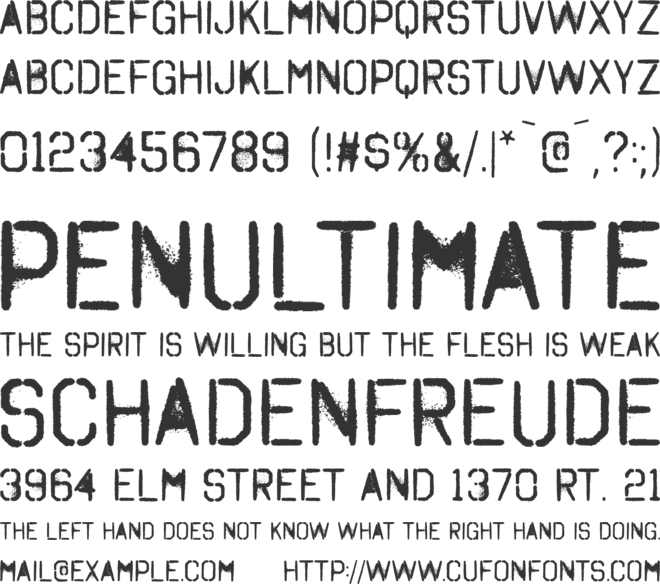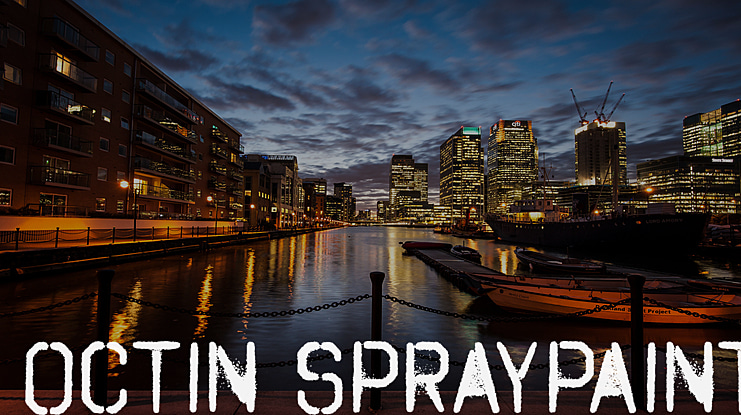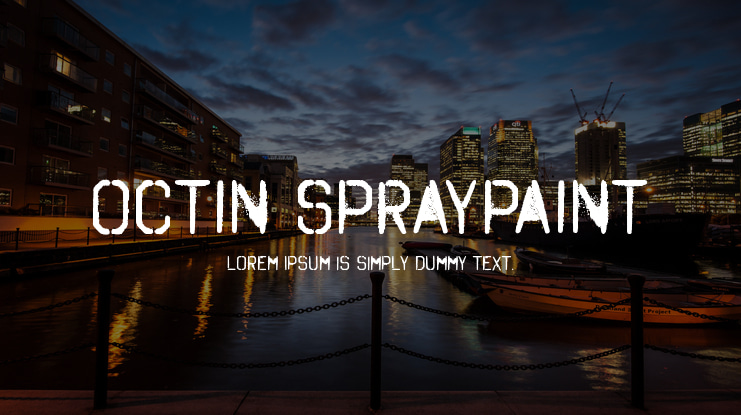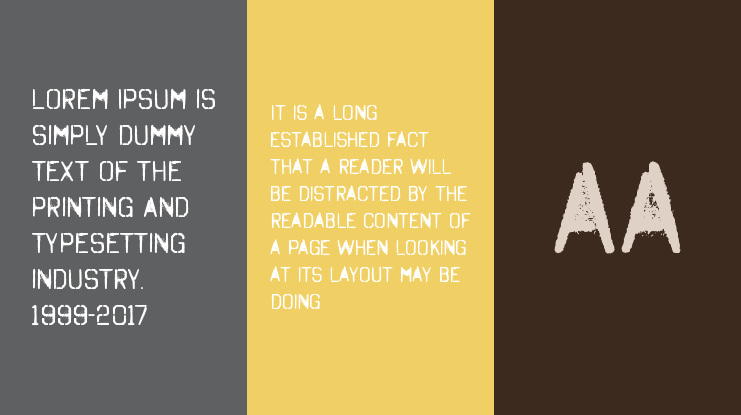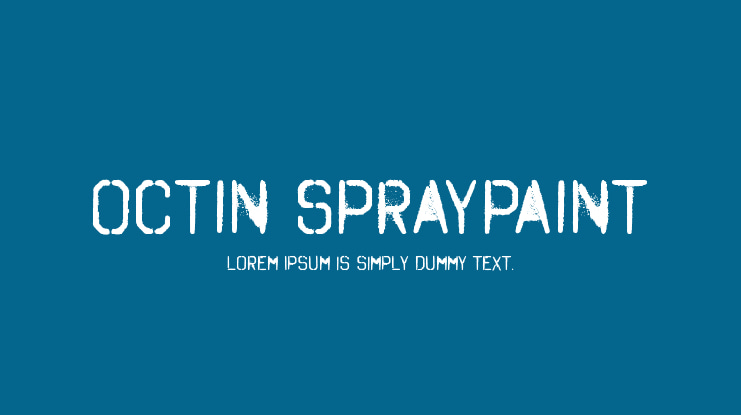
Octin Spraypaint Font
Octin is a set of tough tough headliners. Check out all the Octin families: Octin Vintage, Octin College, Octin Sports, Octin Stencil, Octin Prison & Octin Spraypaint.